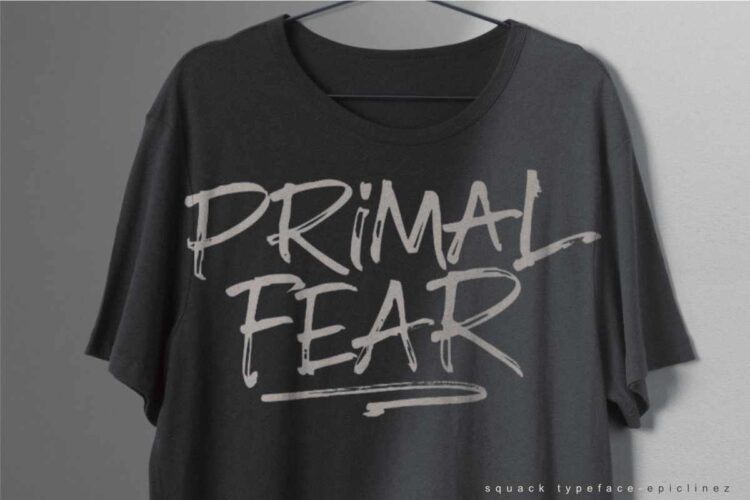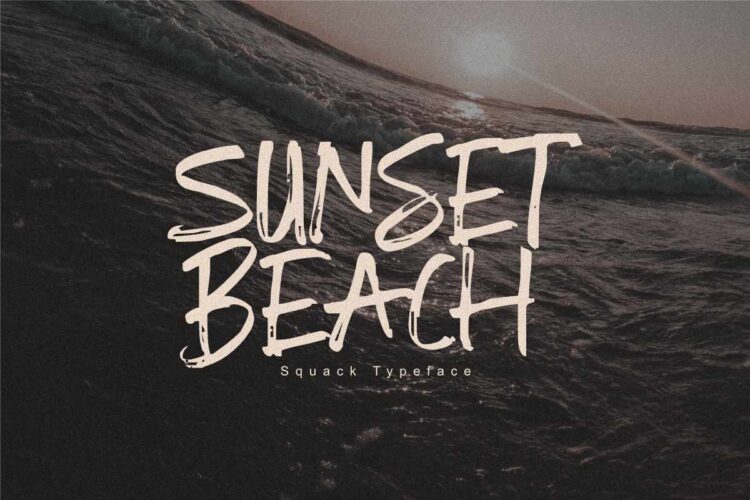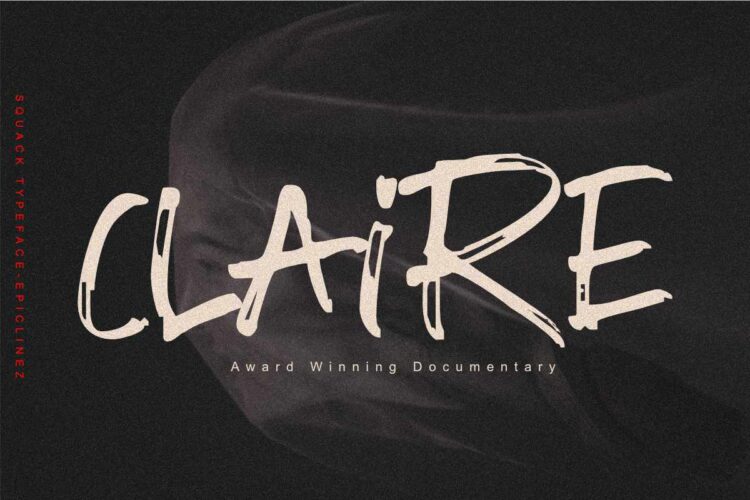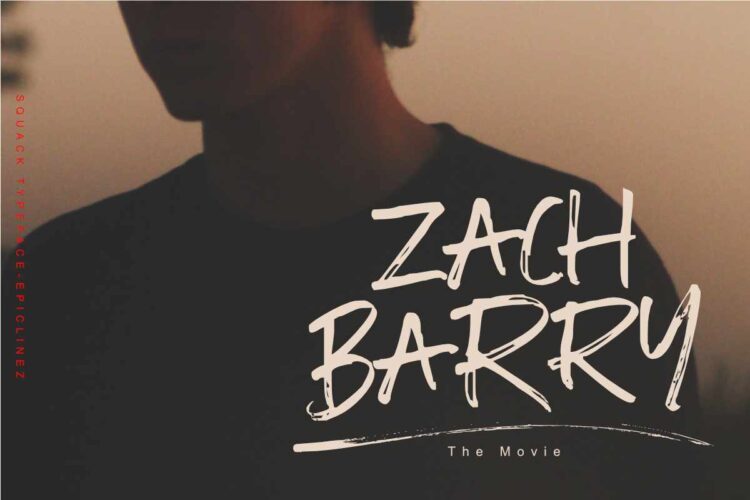
Introducing Squack, the brush typeface that will turn heads! With its excellent texture and carefree attitude, this typeface is perfect for any project. Whether you need it for a poster, branding, movie title, headlines, or logotype – Squack is sure to give your work an explosive boost! Featuring strong thick strokes and sharp edges on each letterform, you’ll get a look that can’t be beaten.